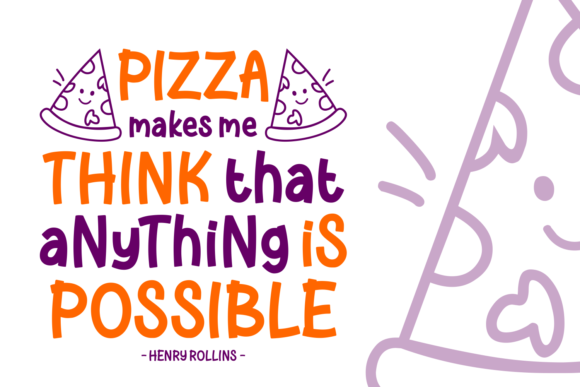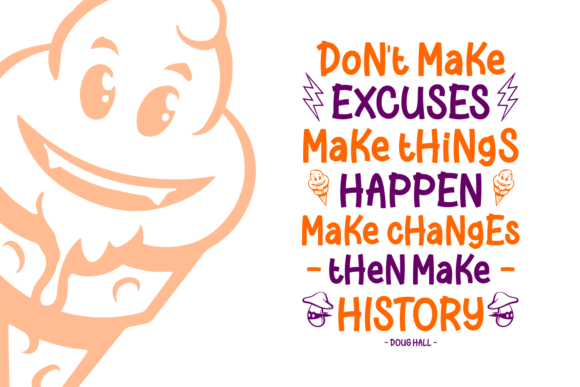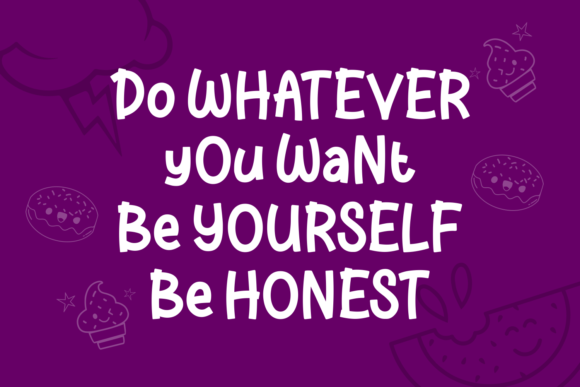
Break Foodish Font
About Break Foodish Font
The Break Foodish is a fun script font. It has a bold, yet playful style and is perfect for making unique designs which need to stand out.